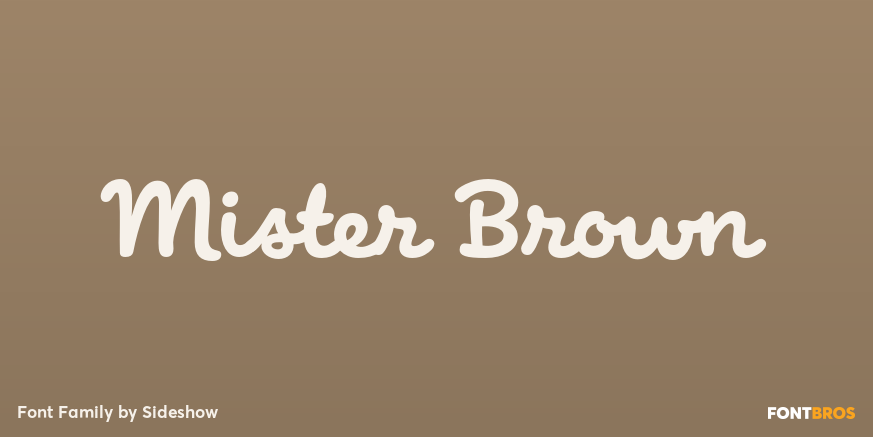
Mister Brown
About Mister Brown
Just who is that handsome, refined gent? He\’s so modern. He\’s so stylish. He\’s so classy! Say hello to Mister Brown, the dapper new script from Sideshow. He\’s the kind of fine fellow you\’ll want to have at all of your gatherings. Mister Brown is replete…